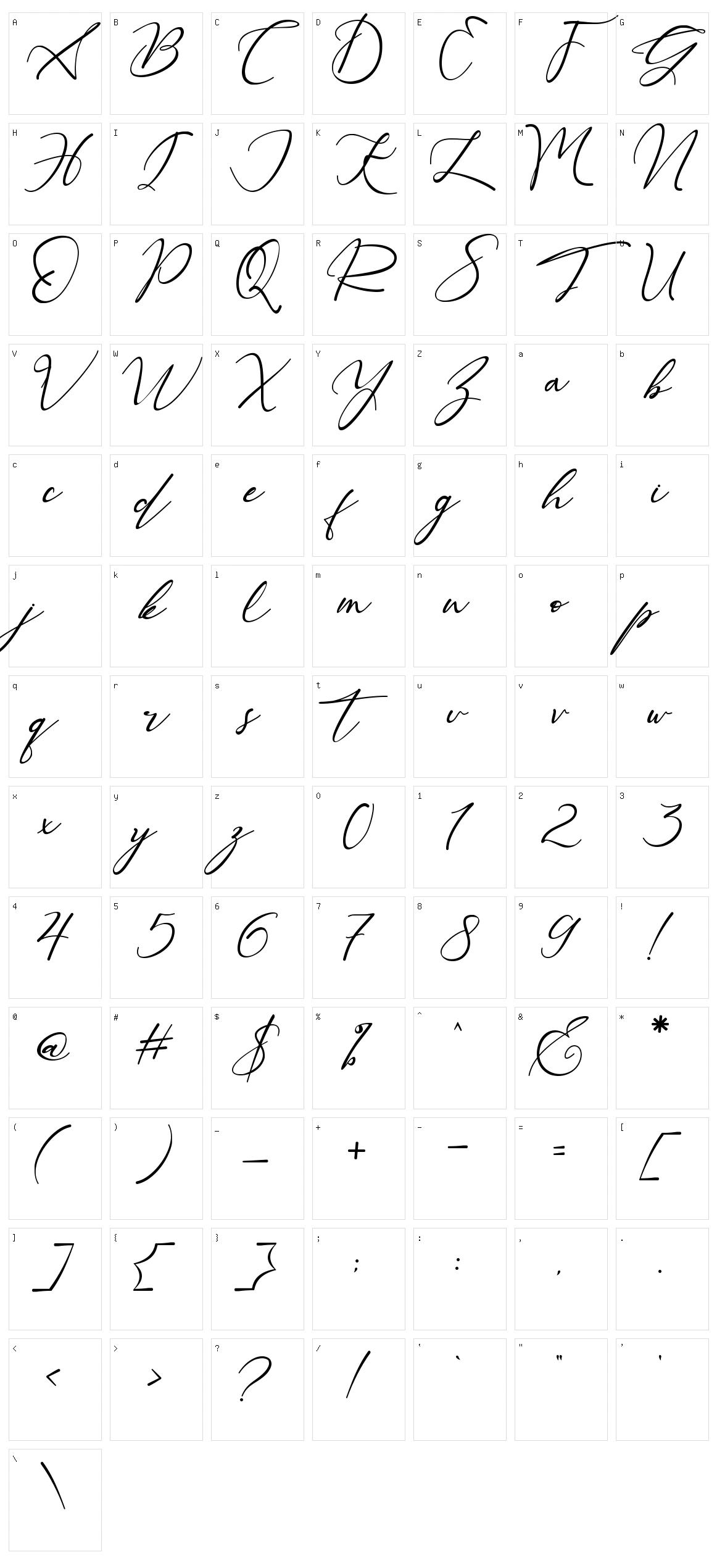
The free font Beautiful Kisses is carefully designed by Letterara, showcasing a thoughtful balance of creativity and usability and falls under the Script font style. When you download the ZIP file, it contains only 253.57 KB of font files, making it lightweight and quick to download. Please review the license details below to understand permitted usage and distribution rights. If license information is not available, we recommend using this font for personal projects only or contacting the author directly for commercial usage permissions.